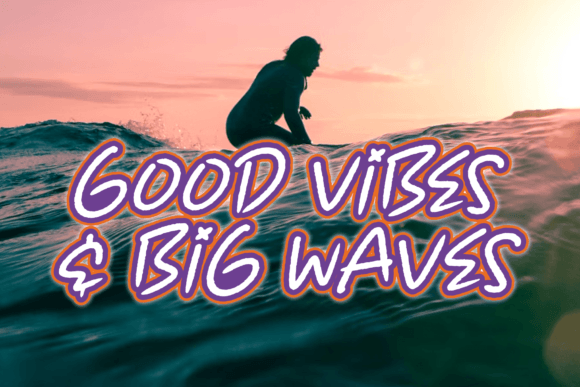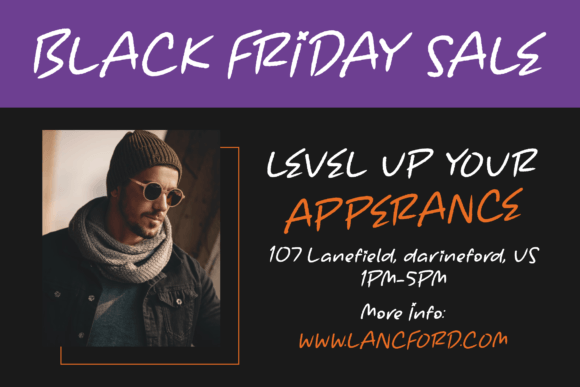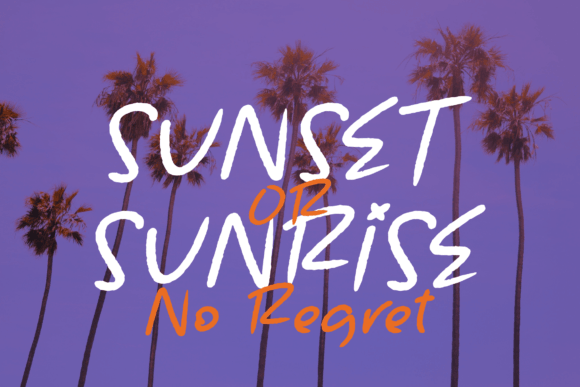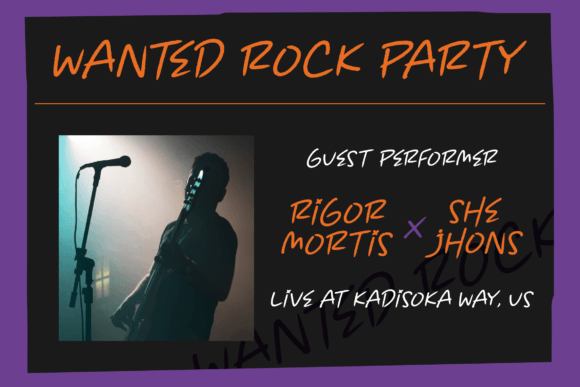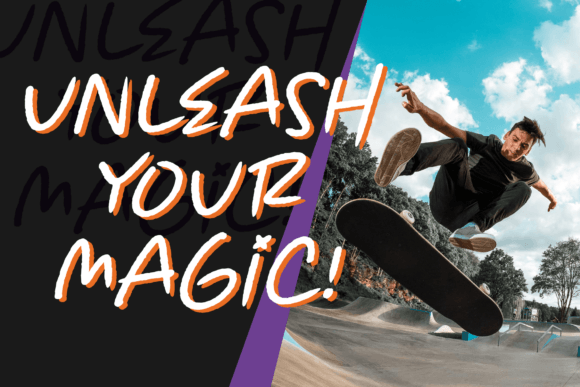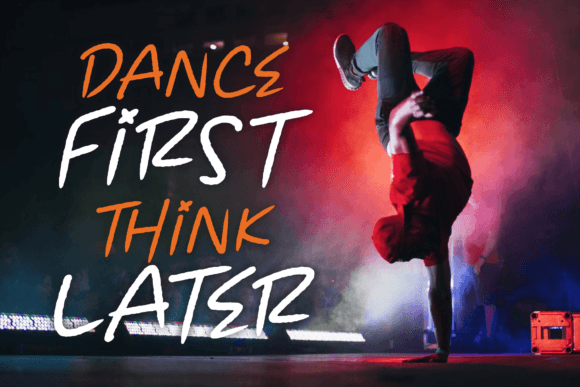
Unlock the Power of Whimsy in Your Designs
Remember that moment when you stumbled upon the perfect font to bring your design to life? For many creatives, it’s a moment of pure excitement and inspiration. You’re brainstorming ideas, experimenting with different styles, and suddenly, the perfect font pops up, elevating your entire concept. It’s a feeling that’s hard to replicate, but with the right tools, you can relive it again and again.
Enter the Crazy Things Font, a delightful display font that adds a playful touch to any design. Its masterful design makes it a true favorite among designers, and for good reason. With its unique, handwritten feel, it’s the perfect addition to any project that needs a little extra whimsy.
- Unique Characteristics: This font features a bold, playful, and whimsical design, with intricate details and flourishes that set it apart from more traditional fonts.
Crazy Things Font Review
As a designer, I was excited to dive into the Crazy Things Font and see what it had to offer. Here’s my honest review.
- ✨ The font’s quirky and playful personality is infectious! It’s perfect for adding a touch of whimsy to children’s books, social media graphics, or other creative projects.
- ✨ The font is highly customizable, with a range of styles and weights to choose from. This makes it easy to adapt to different design contexts.
- ✨ The font is well-suited for digital use, with clear and legible text that’s easy to read on screens.
- ⚠️ The font’s irregular letterforms can make it difficult to read in certain contexts, such as in long blocks of text or at small font sizes.
- ⚠️ The font’s playful nature can also make it feel less professional or formal, which may not be suitable for all design projects.
The Crazy Things Font is a fun and creative addition to any designer’s toolkit. While it may not be the best choice for every project, it’s perfect for adding a touch of personality and whimsy to designs that need a little extra flair.
Getting the Most Out of Crazy Things Font
To get the most out of Crazy Things font, use it in combination with bold colors and playful graphics. This font is ideal for creating eye-catching headings and titles.
Crazy Things font is commonly used in:
– Party invitations
– Marketing materials
– Branding elements